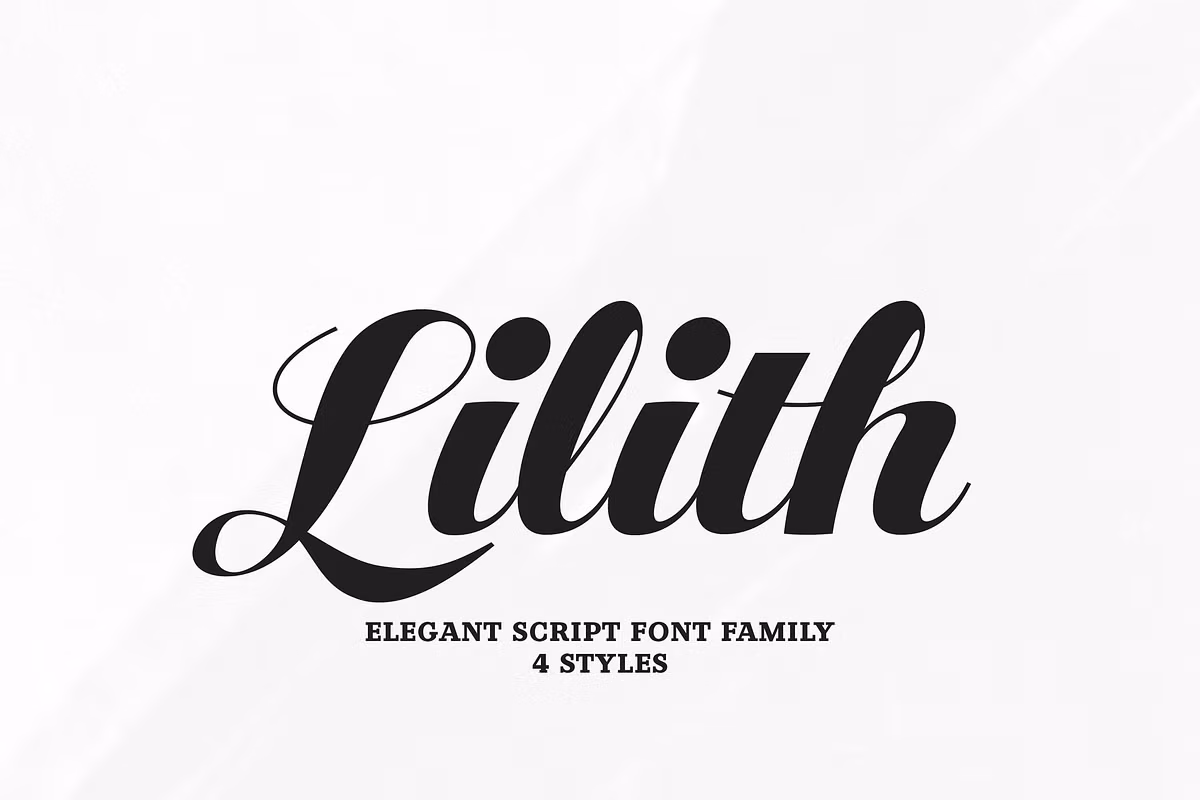
The Lilith Script Pro Font Family Free Download is a refined and expressive collection of script fonts that blends elegance with versatility. Designed for high-end branding, wedding stationery, fashion editorials, personal logos, and luxury packaging, Lilith Script Pro adds a graceful handwritten touch to any design.
This font family includes multiple styles—ranging from delicate to bold—allowing you to mix and match weights for a cohesive and dynamic typographic experience. With flowing ligatures, swashes, stylistic alternates, and multilingual support, it offers everything you need for polished and professional-looking layouts.